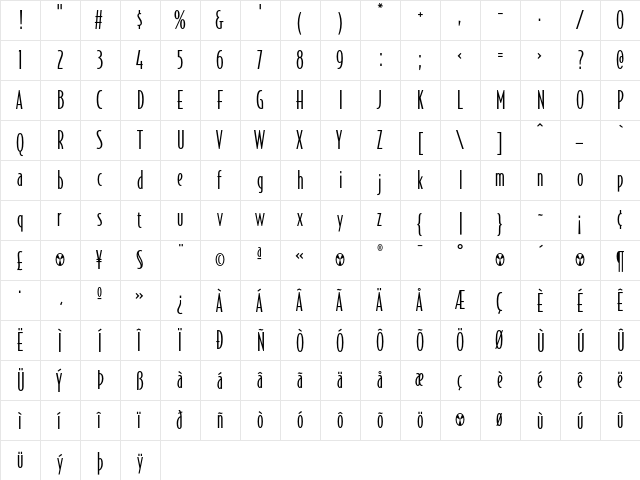
BodegaSans-Light Regular
Design Context for BodegaSans-Light Typeface
BodegaSans-Light takes a measured approach to typography — its balanced proportions and neutral character make it a reliable workhorse for both digital and print work. Its slender proportions lend an understated elegance to any composition.